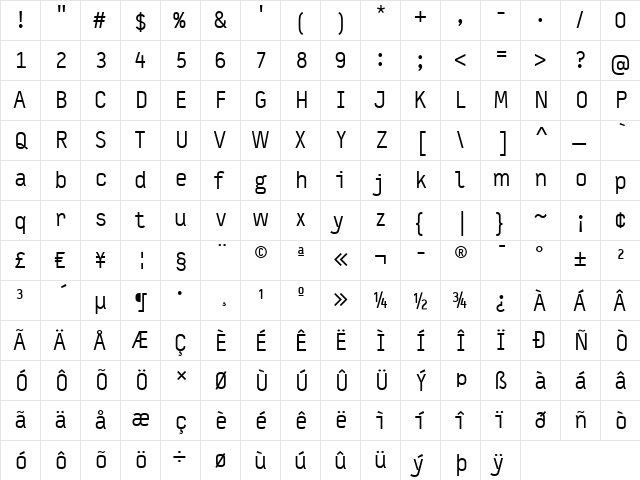
Typestar Web-Normal Regular
| Designer | Steffen Sauerteig |
Design Context for Typestar Web-Normal Typeface
Typestar Web-Normal takes a measured approach to typography — its balanced proportions and neutral character make it a reliable workhorse for both digital and print work.